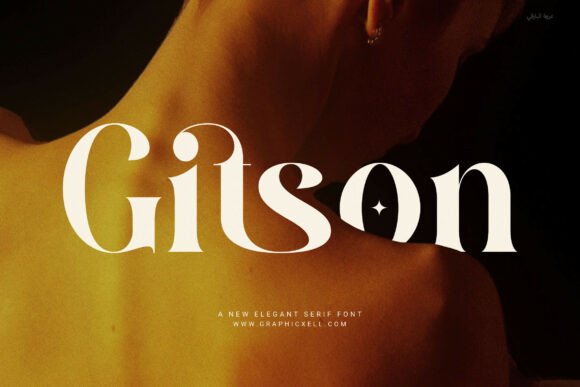
Gitson Font: Elevate Your Brand with Elegance and Sophistication
In the world of typography, a font can make or break a brand’s identity. A well-crafted font can elevate a brand’s image, convey its values, and leave a lasting impression on its audience. This is where Gitson Font comes in – a stylish and modern serif typeface designed to bring timeless appeal to your brand. In this article, we’ll explore the features, benefits, and uses of Gitson Elegant Serif Font, and why it’s the perfect choice for bold brands looking to make a statement.
What is Gitson Elegant Serif Font?
Gitson Elegant Serif Font is a modern serif typeface crafted with precision and attention to detail. Its balanced, proportional letterforms give your design a clean and polished look, making it perfect for luxury branding, editorial content, and high-end designs. The font features elegant curves and functional ligatures, which add charm and character to any project.
Key Features of Gitson Elegant Serif Font
- Modern serif design: Gitson boasts a modern serif design with smooth, stylish curves that exude elegance and sophistication.
- Functional ligatures: The font features functional ligatures, which provide extra design flexibility and allow you to create unique and creative designs.
- Highly legible: Gitson is designed to be highly legible, making it perfect for both screen and print use.
- Ideal for premium branding: The font is ideal for premium branding and editorial layouts, making it perfect for luxury brands, magazines, and high-end designs.
- Perfect for fashion and lifestyle industries: Gitson is specifically designed for fashion, beauty, and lifestyle industries, making it the perfect choice for brands looking to make a statement.
Why Choose Gitson Elegant Serif Font?
With so many fonts available, why choose Gitson Elegant Serif Font? Here are just a few reasons:
- Timeless appeal: Gitson’s modern serif design ensures that your brand will have a timeless appeal that won’t go out of style.
- Elegance and sophistication: The font’s elegant curves and functional ligatures add a touch of elegance and sophistication to any design.
- Versatility: Gitson is versatile and can be used for a wide range of designs, from logos and websites to magazines and business cards.
- Readability: The font’s high legibility ensures that your text is easy to read, making it perfect for both digital and print formats.
- Professionalism: Gitson is designed to make your brand look professional and unforgettable.
Use Cases for Gitson Elegant Serif Font
Gitson Elegant Serif Font is perfect for a wide range of designs, including:
- Logos: Use Gitson to create a stunning logo that reflects your brand’s values and personality.
- Websites: The font’s high legibility and elegant curves make it perfect for websites, especially those in the fashion, beauty, and lifestyle industries.
- Magazines: Gitson is ideal for magazine designs, adding a touch of elegance and sophistication to your editorial content.
- Business cards: Use Gitson to create professional and stylish business cards that make a lasting impression.
- Product packaging: The font’s versatility makes it perfect for product packaging, especially for luxury brands.
- Social media graphics: Gitson can be used to create stunning social media graphics that reflect your brand’s personality and style.
Tips for Using Gitson Elegant Serif Font
Here are a few tips for using Gitson Elegant Serif Font:
- Pair it with a sans-serif font: Pairing Gitson with a sans-serif font can create a beautiful contrast and add visual interest to your design.
- Use it for headlines and titles: Gitson’s elegant curves and functional ligatures make it perfect for headlines and titles.
- Experiment with different colors: Gitson looks stunning in a variety of colors, so don’t be afraid to experiment and find the perfect color scheme for your brand.
- Use it consistently: Consistency is key when it comes to branding, so use Gitson consistently across all your designs to create a cohesive look.
In conclusion, Gitson Elegant Serif Font is a stylish and modern serif typeface that can elevate your brand’s image and leave a lasting impression on your audience. Its elegant curves, functional ligatures, and high legibility make it perfect for luxury branding, editorial content, and high-end designs. With its flexible licensing options and versatility, Gitson is the perfect choice for bold brands looking to make a statement.
- What is Gitson Elegant Serif Font?: Gitson Elegant Serif Font is a modern serif typeface crafted for timeless appeal.
- What are the key features of Gitson?: Gitson features a modern serif design, functional ligatures, high legibility, and flexible licensing options.
- What are the use cases for Gitson?: Gitson is perfect for logos, websites, magazines, business cards, product packaging, and social media graphics.